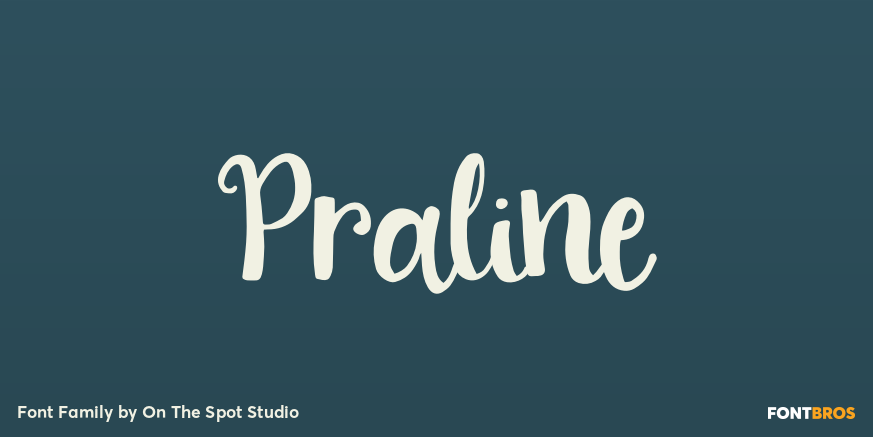
HomeFont BrosHandwrittenPraline HandwrittenScripts: Casual Praline FacebookXPinterestWhatsApp 1 of 1 About Praline Fun, hand lettered, and super sweet Praline is bold yet lovely.  DOWNLOAD ON FONT BROSThis font is sold and delivered by Font Bros. Font Canyon may earn a commission if you buy through this link. People also explored Romeo Font The Girly Kid Font Kilgore Font Julianne Font Ellen Scarlett Font Boomshell Font Quick Note Font West Riattol Font Easteria Font 289 0 TagsPralinePraline Font Previous articleBake SaleNext articleHot Fudge LEAVE A REPLY Cancel reply Comment: Please enter your comment! Name:* Please enter your name here Email:* You have entered an incorrect email address! Please enter your email address here Website: Save my name, email, and website in this browser for the next time I comment. Personal Use Free Airmole Personal Use Free Read more about this font Yukarimobile Personal Use Free Read more about this font Doriss Girls Family Personal Use Free Read more about this font Butter Belly Personal Use Free Read more about this font BLOG Fonts That Capture the Spirit of New York City New York City is more than just a place—it’s an experience, a rhythm, a visual language... Modern Sans-Serif Fonts That Brands Love in 2025 The 10 Best Handwriting Fonts to Add Personality to Your Designs Top 10 Handwritten Fonts That Elevate Your Designs